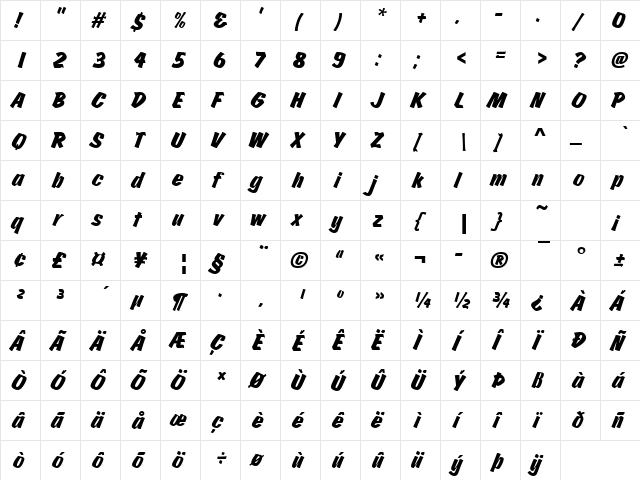
Brushwood Italic
Design Context for Brushwood Typeface
Brushwood taps into classic Western woodtype traditions — bold, characterful, and impossible to ignore. The slanted form adds forward momentum and visual energy.
Perfect for barbecue restaurants, country music branding, vintage poster design, and rustic packaging.
Font Pairing: Combine Brushwood with a simple slab or neutral sans — period-accurate companions reinforce the vintage feel without competing for attention.
Pro Tip: Pair Brushwood with aged textures or distressed backgrounds to amplify its vintage personality.